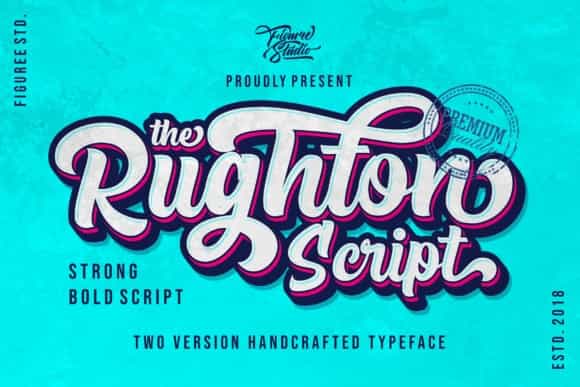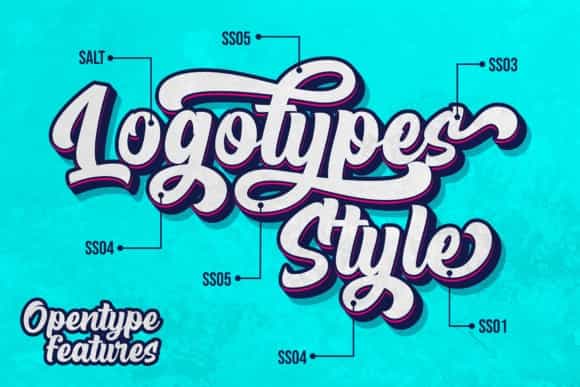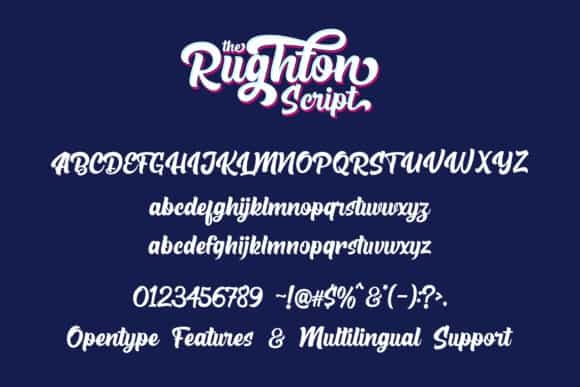
The Rughton Bold Script Font is here. It is a neat handwritten script font. This font is an ideal one for design tasks like nice design for wedding, crafting, posters, business cards, and the like. It is designed and shared by Figuree Studio. The Rughton Bold Script Font is a powerful and strong script font.